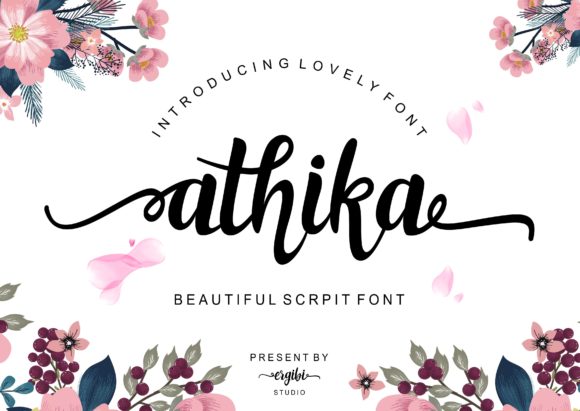
The Athika Font: A Luxurious Script Font for Your Creative Projects
I’ll never forget the time I was working on a wedding invitation design project, and my client asked for a font that would make their special day feel like a fairytale. I scoured the internet, tried out dozens of fonts, but none seemed to fit the bill. That was until I stumbled upon the Athika font. ✨ Its elegant, modern script style instantly captured the essence of the occasion, and I knew I had found the perfect fit.
An Honest Review of Athika Font
What I Love About Athika Font
• ✨ Unique and Luxurious Touch: Athika font adds a touch of sophistication and glamour to any design project.
• ✅ Modern and Elegant Look: Its modern script style makes it perfect for logos, branding, invitations, and wedding stationery.
• 💕 Versatile: Athika font can be used for a wide range of design projects, from photography to labels.
While Athika font is an excellent choice for many design projects, there are a few things to keep in mind:
• ⚠️ Legibility at Small Sizes: Like many script fonts, Athika can be a bit tricky to read at very small sizes. Make sure to test it out at different sizes to ensure it’s legible for your project.
• 🤔 Overuse of Swashes: While Athika font comes with beautiful swashes and stylistic alternates, be careful not to overuse them. Too many swashes can make your design look cluttered and overwhelming.
The Story Behind Athika Font
Athika font was designed by a team of typographers who wanted to create a modern script font that would evoke the feeling of luxury and sophistication. Inspired by classic calligraphy and modern digital design, Athika font is the result of careful craftsmanship and attention to detail.
Q: What is the Athika font style?
A: Athika font is a modern script font with an elegant and luxurious feel.
Q: Is Athika font suitable for body text?
A: While Athika font is beautiful and elegant, it’s not the best choice for body text. It’s better suited for headings, titles, and short paragraphs.